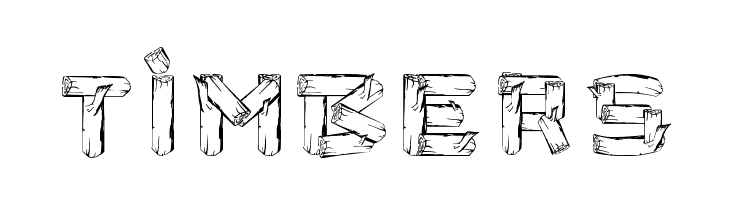
( Fabian Kirst - www.fabiankirst.tumblr.com )
A rugged, hand-drawn font with an organic, twig-like appearance.
( John Gauthier - John Gauthier )
A bold, angular font with a dynamic and modern style.
( Lettersiro - Shiro Ngampus - creativemarket.com/Lettersiro )
A bold, textured vintage font with a distressed, rustic look.
( Markus Schröppel - www.mschroeppel.de/ )
A bold, hand-drawn font with an artistic and rustic style.
( MatNowRock - www.facebook.com/matnowrock )
A playful, hand-drawn font resembling wooden planks assembled into letters.
( Thomas Mettendorf - www.schmalfett.de )
A bold, organic font with a rugged, hand-drawn appearance.
A bold, rugged font with an organic, hand-drawn appearance.
( AncientLahiru )
A hand-drawn, rustic font with irregular strokes and an organic feel.
( Fontor )
A bold, blocky font with a hand-crafted, modern rustic style.
( JLARTDESIGN - jlartdesign.com )
A nautical-themed, hand-drawn font with angular, rustic characters.
( London's Letters - www.londonsletters.com/ )
A bold, decorative font featuring integrated deer silhouettes for a rustic, eye-catching design.
A rugged, barbed wire-inspired font with a hand-drawn appearance.
( Fonts by Lettersiro Studio )
A bold, distressed font with a playful, rustic style.
A bold, organic font with a hand-carved, rustic appearance.
( Fonts by Eliot Truelove )
A playful, rustic font with a hand-drawn, textured appearance.
A bold, hand-painted style font with a rustic and organic feel.
( Fonts by Vunira Design )
A textured, vintage-style font with a rustic, handcrafted appearance.
A bold, hand-drawn font with a rugged, textured style.
A bold, hand-drawn font with a rustic and organic feel.
A bold, distressed font with a vintage, rustic appeal.
( Fonts by Vic Fieger )
A bold, textured font with a rustic, hand-crafted appearance.
A rustic, handwritten font with a brush-like texture and playful style.
A hand-drawn, rustic font with tall, narrow characters and an artistic, organic texture.
A bold, hand-drawn font with a rustic and organic feel.
A rustic, woodblock-inspired font with an organic and textured appearance.
A bold, textured font with a hand-painted, rustic style.
A playful, handwritten font with bold, whimsical characters.
A bold, rough-textured font with a hand-drawn, rustic appearance.
( Fonts by Letterhend Studio - Hendry Juanda - Personal-use only. For commercial use please contact owner. )
A bold, textured font with a hand-drawn, rustic appearance.
A playful, textured font with a hand-drawn, rustic charm.
A bold, brush-style font with a rustic, distressed texture.